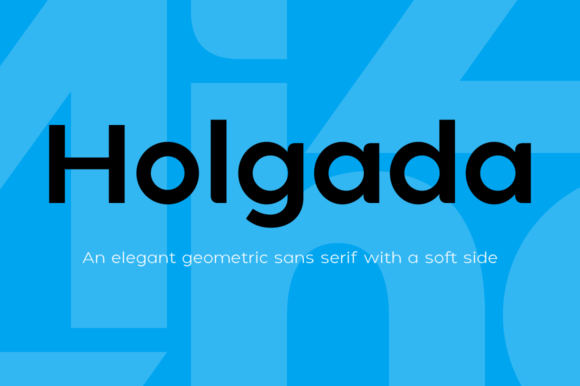
Discover the Essence of Elegance: Holgada Family Font, the Ultimate Choice for Designers and Visionaries
In a world saturated with visual distractions, captivate your audience with the allure of Holgada Family Font, a stunning sans serif typeface that exudes sophistication and timeless appeal. Holgada's refined rounded endings lend a soft and inviting touch, creating a sensory experience that draws readers into your designs.
Crafted with meticulous attention to detail, Holgada's graceful curves and clean lines embody the essence of simplicity and elegance. Its versatility shines through, seamlessly adapting to a myriad of creative projects, from elegant logos and bold headlines to captivating body text.
Holgada's meticulously designed character set includes small caps and glyph coverage for an array of languages, ensuring that your message reaches a global audience. Its clear legibility ensures effortless readability, even in the most intricate layouts and at various sizes - from minuscule body text to colossal headlines.
Whether you seek to craft an unforgettable brand identity, create immersive digital experiences, or compose captivating marketing materials, Holgada Family Font is your ultimate ally. Its intuitive design empowers you to communicate your message with clarity and impact, leaving an indelible impression on your audience.
Embrace the allure of Holgada Family Font today and unlock a world of creative possibilities. Let your designs blossom with elegance, captivate your audience with timeless sophistication, and leave a lasting legacy of visual excellence.